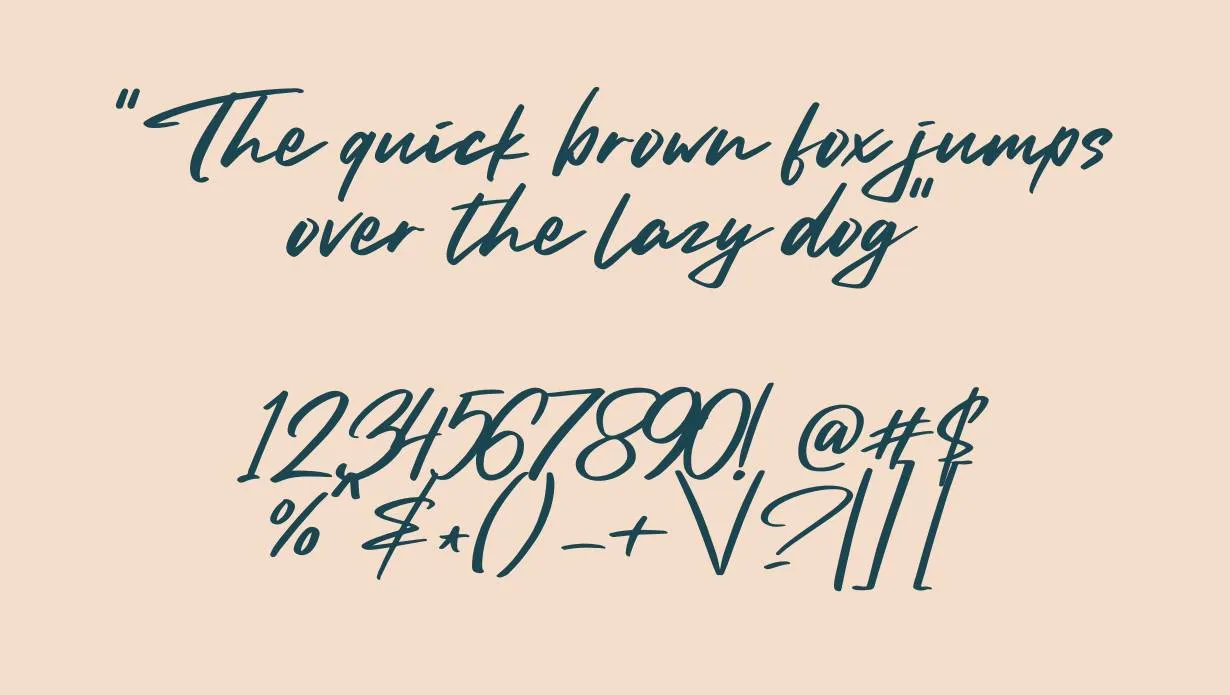
The Smooth Fantasy Font is a magical journey in typography, transporting your designs to whimsical realms. Ideal for fantasy-themed projects or captivating children’s book covers, its smooth characters weave enchanting tales.
| Name | Smooth Fantasy Font |
| Designer | Donis Miftahudin |